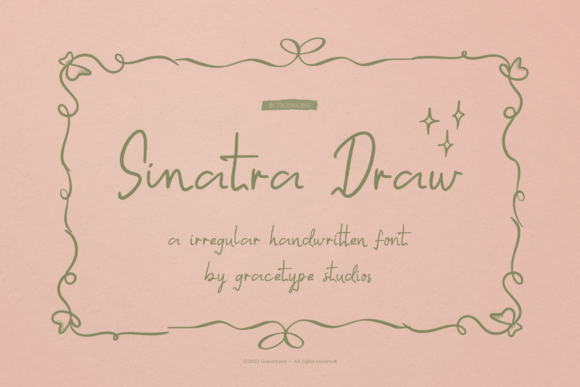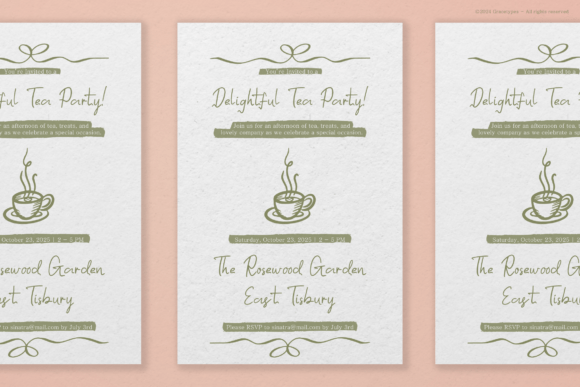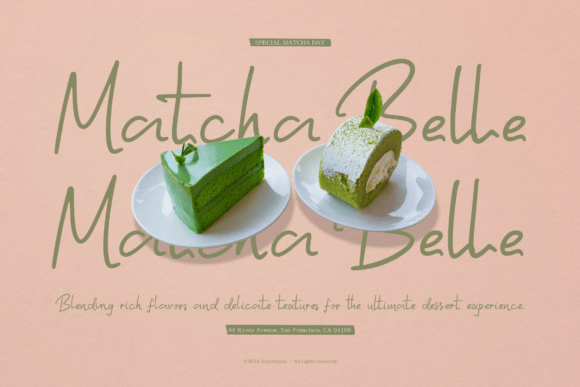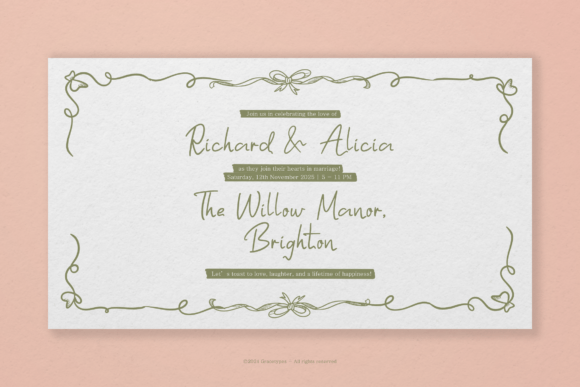
Sinatra Draw Font: Whimsical Handwritten Font for Cute DIY & Cricut Projects
About the Sinatra Draw Font
Make a bold statement with Sinatra Draw Font, a powerful and memorable font. Sinatra Draw is a charming and whimsical handwritten font with an irregular, organic feel. Its delicate strokes and playful imperfections make it ideal for creative projects, greeting cards, wedding invitations, and artisanal branding. Add a touch of personality to your designs with this beautifully sketched typeface.
Sinatra Draw Font Usage Examples
Sinatra Draw Font Example